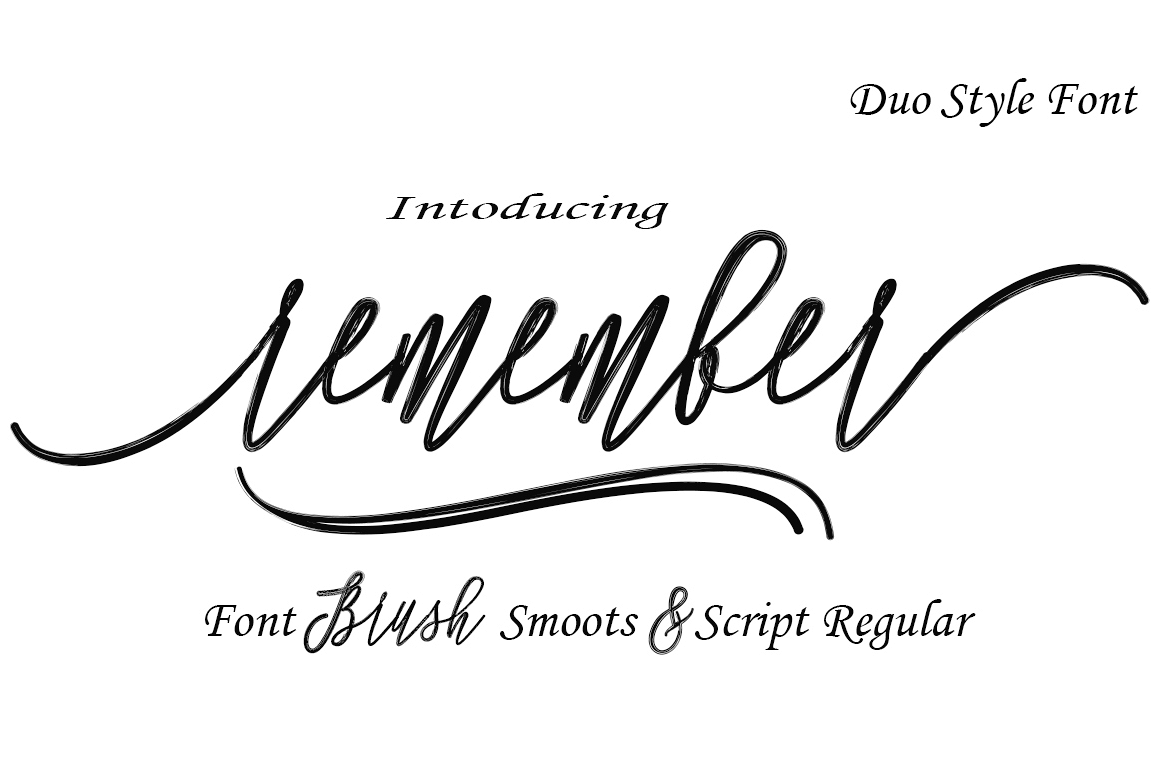
Remember Duo Style
Remember
RememberBrush
INTRODUCING
Remember Font Duo Modern Calligraphy Font Brush and Script Regular  This font was designed by handwriting, and it has a modern and unique forms of calligraphy, the writing style is very natural. Annamelia has a very unique style of calligraphy, it is very suitable for use in the work of modern design.
The Features of this fonts is:
* Standart ligatures
* Stylistic Alternates
* Swahs